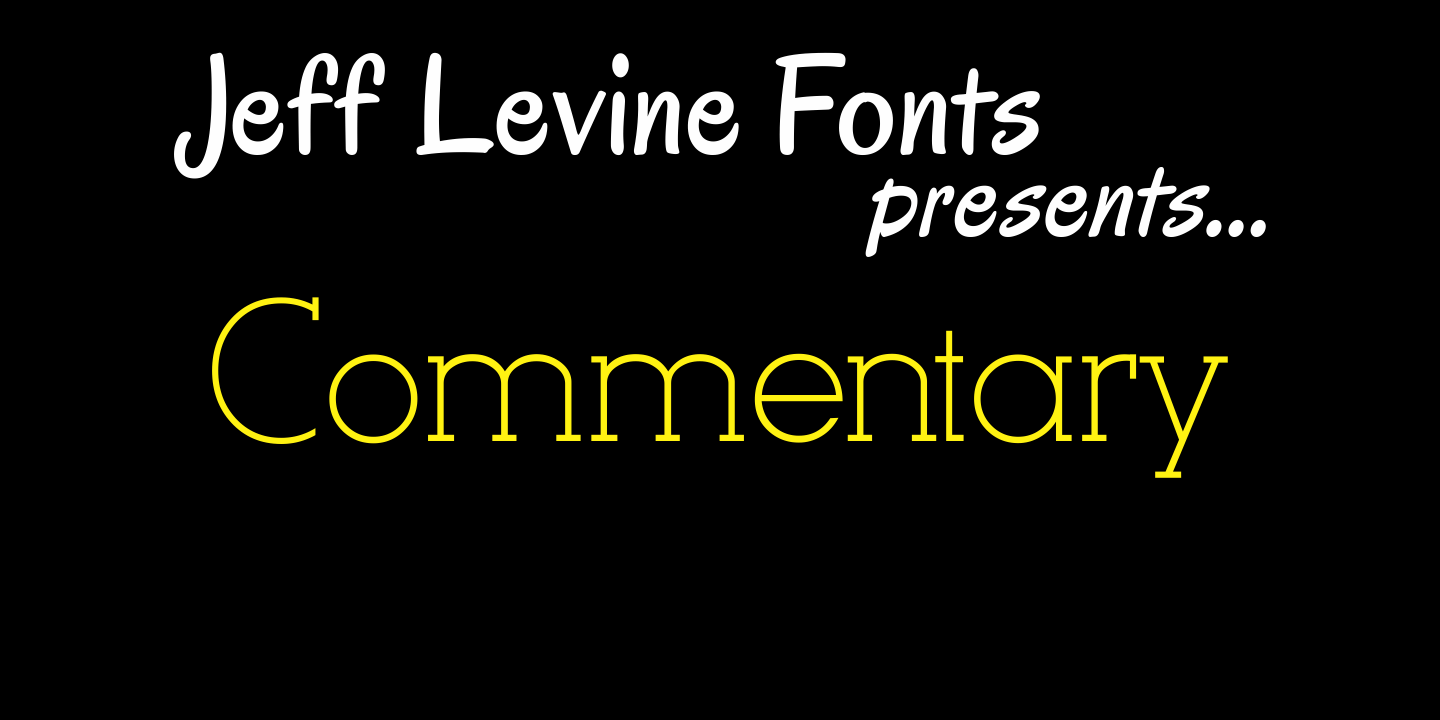
Commentary
Commentary JNL is a serif treatment of Jeff Levine's popular Stylor JNL sans serif font. Offered in two weights – regular and light – Commentary is a perfect alternative to formal text fonts and has just a touch of hand-made design to make for a more casual reading experience.
Light Regular